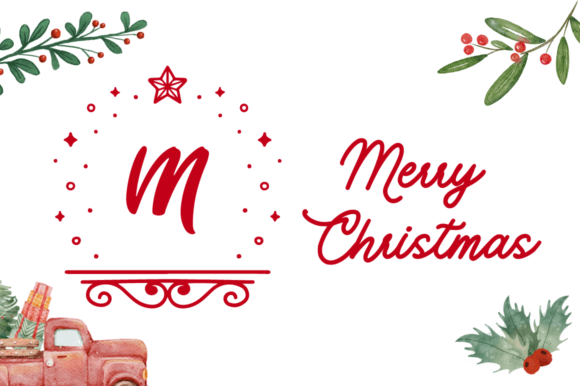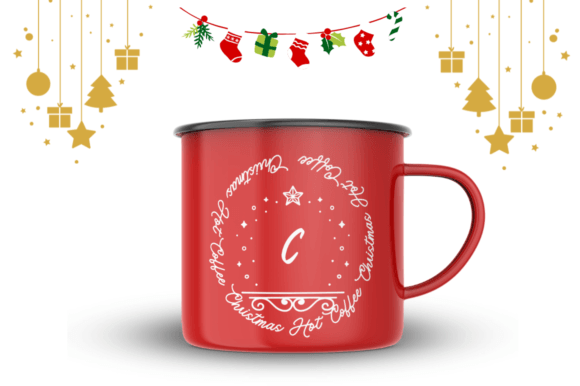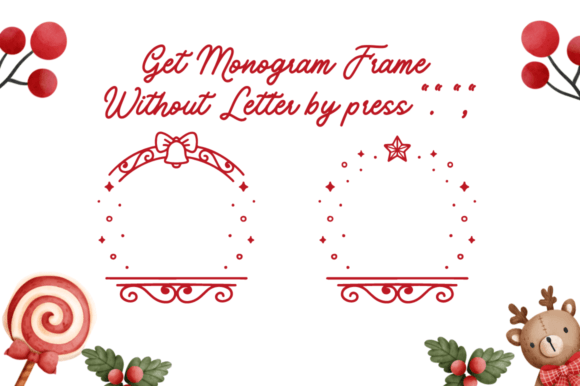
Introduction to Holy Christmas Monogram Font
Holy Christmas Monogram is a Christmas and Winter-themed monogram font, perfect for special occasions, business designs, logos, branding, social media posts, and wedding cards.
Key Features of Holy Christmas Monogram Font
Why Choose Holy Christmas Monogram Font?
Holy Christmas Monogram Font offers exceptional quality and versatility, making it a valuable addition to your design toolkit. Whether you’re creating for personal projects or commercial use, Holy Christmas Monogram Font delivers professional results.